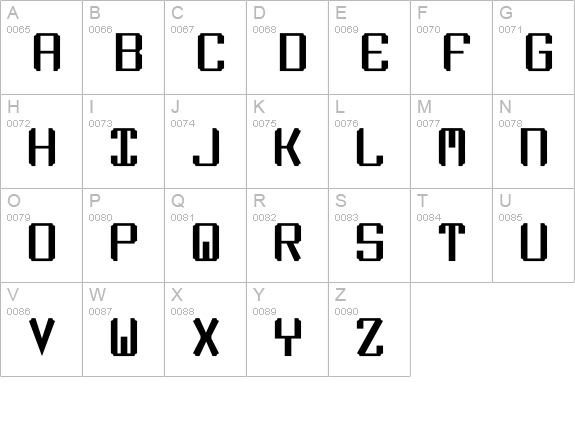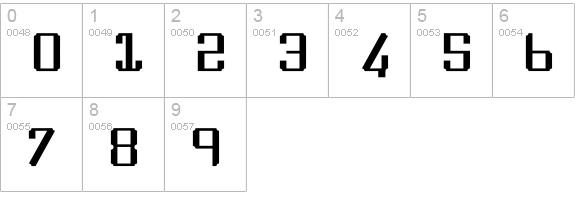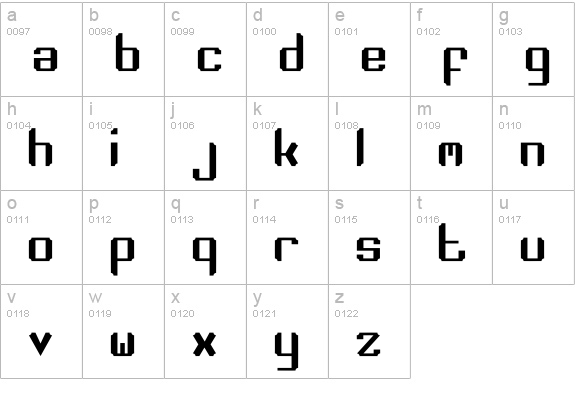
Zee Lance Font Details
Zee Lance font is a versatile and eye-catching typeface that exudes elegance and charm. With its sleek lines and modern appeal, this font is perfect for a wide range of design projects, from branding to invitations to signage. The unique curves and sharp angles of Zee Lance give it a distinctive look that is sure to make your text stand out. What's even better is that Zee Lance font is available for free! That's right, you can download this stunning font at FontsMarket.com without spending a dime. Whether you're a professional designer or a hobbyist looking to add a touch of sophistication to your creations, Zee Lance is the perfect choice. Don't miss out on this fantastic opportunity to enhance your designs with the beauty of Zee Lance font.